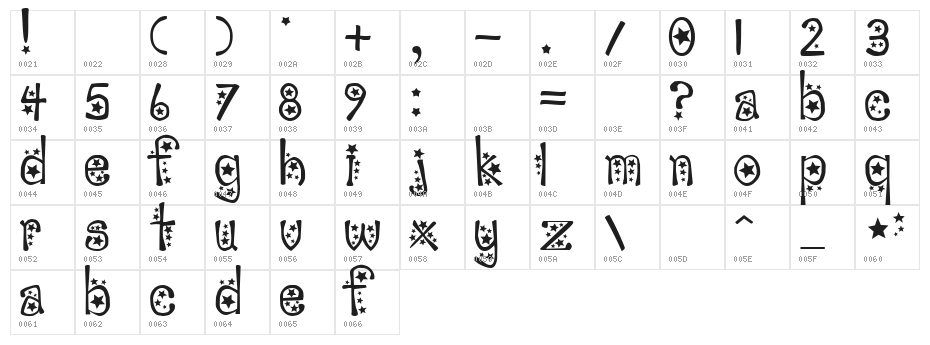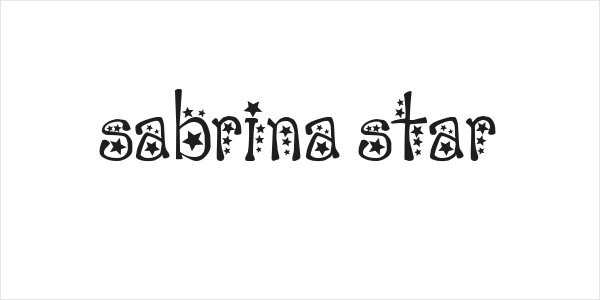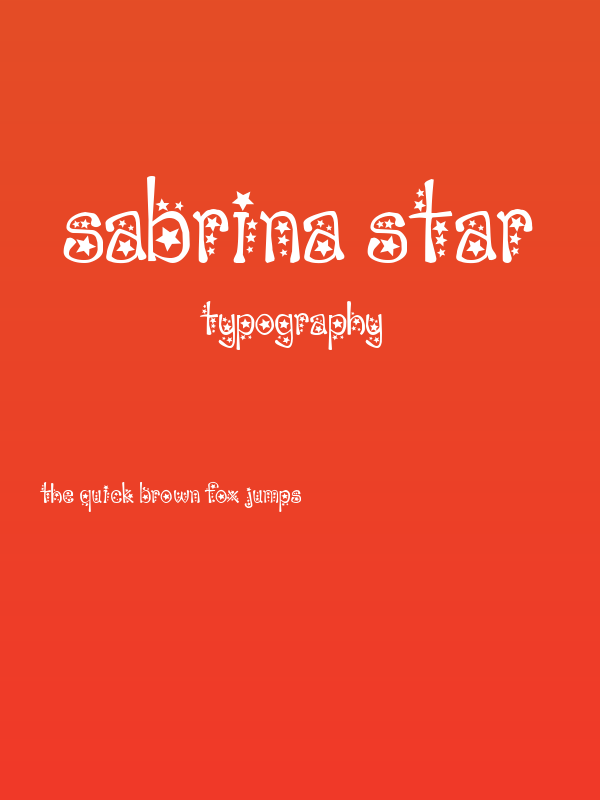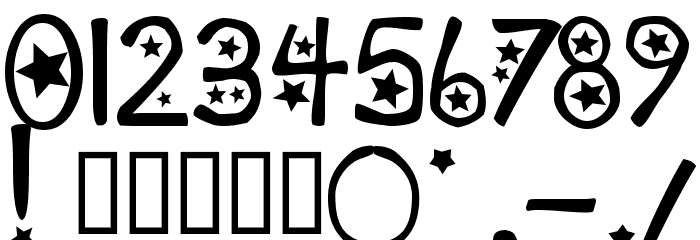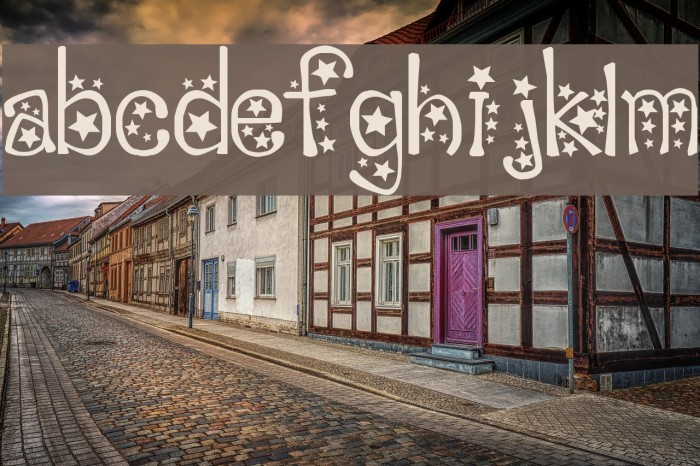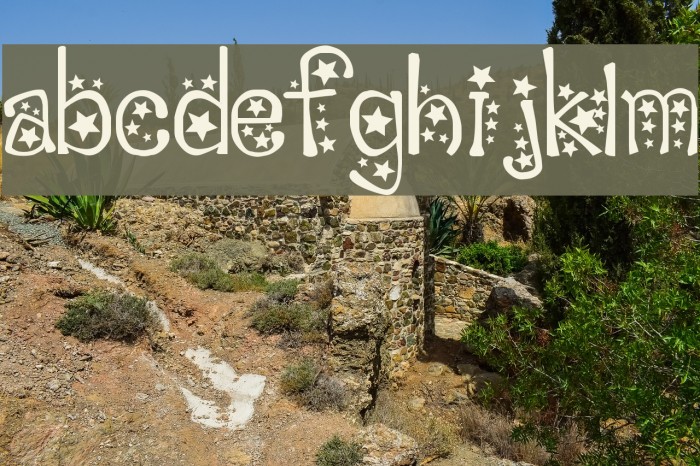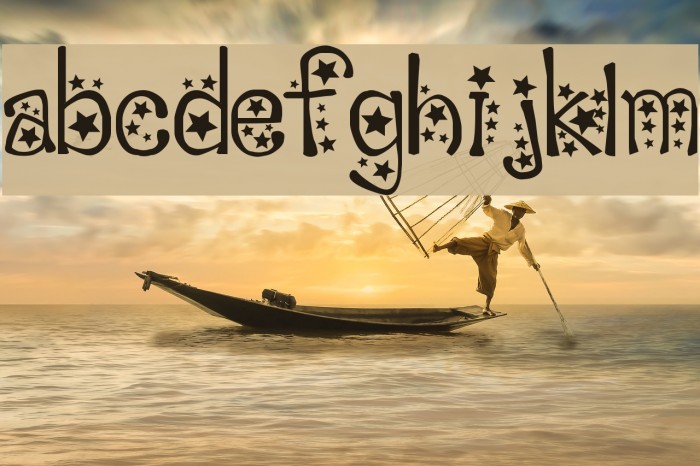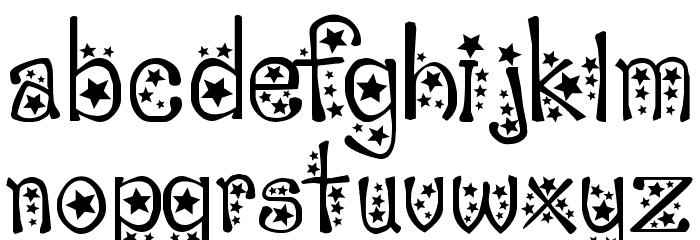
sabrina star Font
sabrina star Description
This playful and decorative font features a unique design where each character is adorned with star motifs. The letters are bold and have a whimsical, fun appearance, making them stand out with their starry embellishments. The font maintains a consistent style across uppercase, lowercase, and numeric characters, all of which are infused with star patterns. The special characters also follow this theme, adding a cohesive look to the entire set. This font is perfect for projects that require a touch of creativity and flair, appealing to audiences looking for something lively and engaging.
| Proposed Projects | Ideal for children's book covers, party invitations, playful branding, and creative posters. |